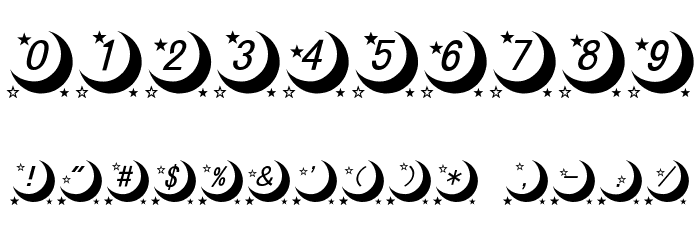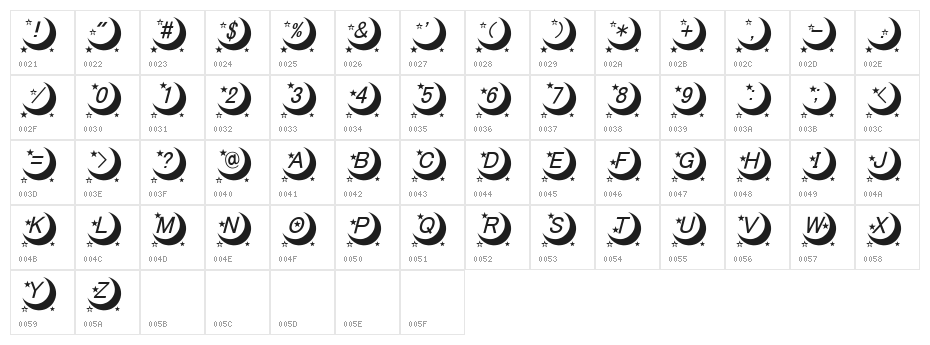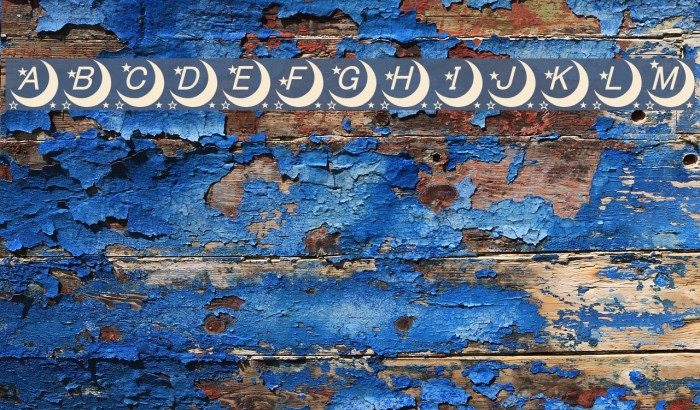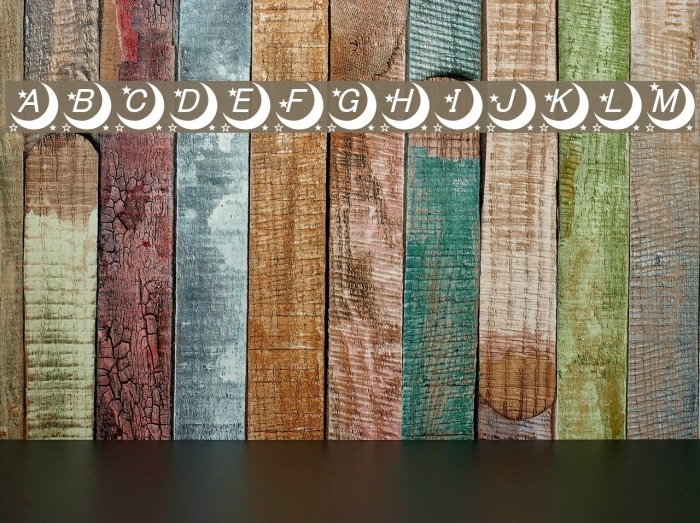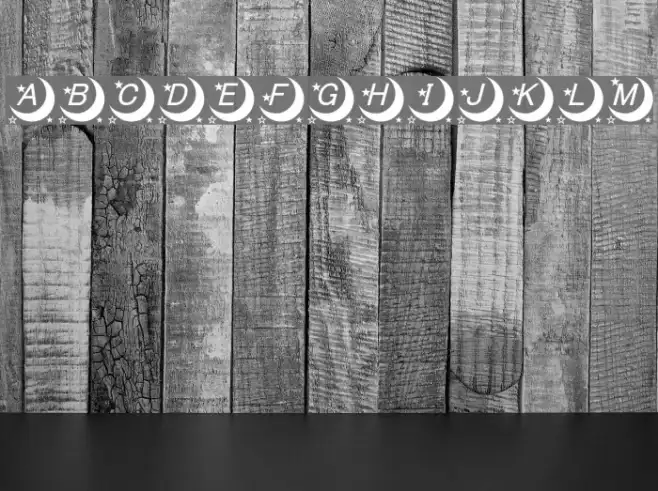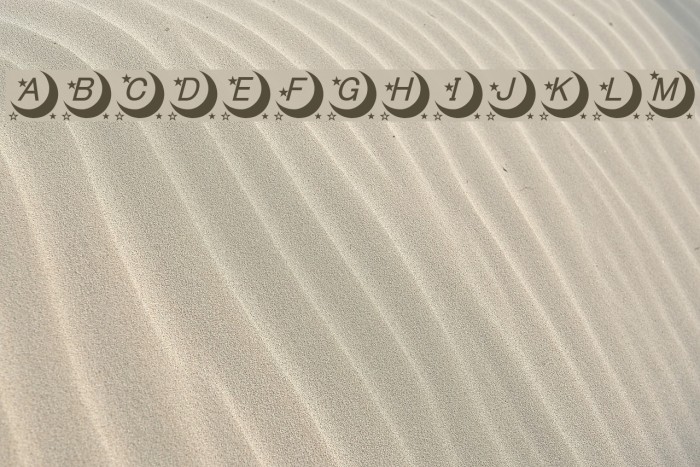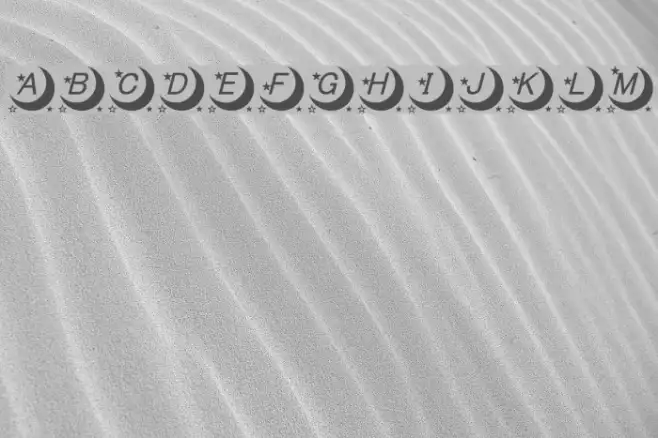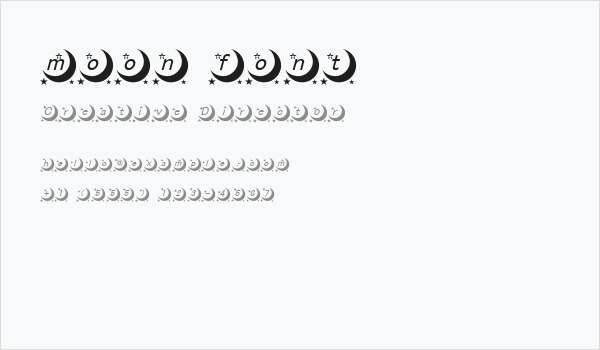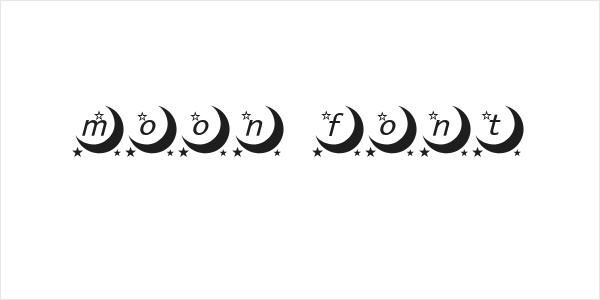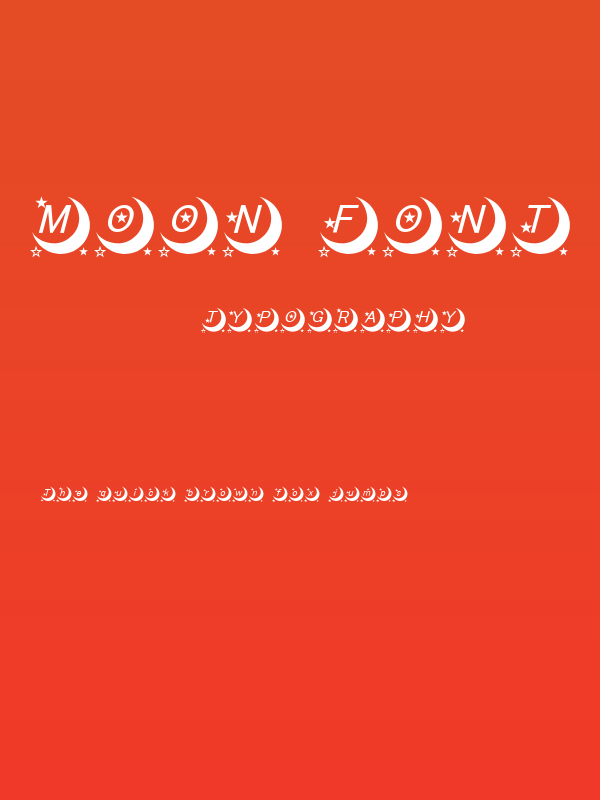
moon font Font
moon font Description
This decorative font features a whimsical design where each character is integrated with a crescent moon and star motif. The letters and numbers are bold and stylized, with a playful yet elegant appearance. The crescents and stars add a celestial theme, making it ideal for projects that require a magical or night-time aesthetic. The characters are evenly spaced, ensuring readability while maintaining the decorative elements. This font is perfect for creative projects that aim to capture a sense of wonder and fantasy.
| Proposed Projects | Ideal for children's book covers, fantasy-themed invitations, astrology blogs, and magical event posters. |